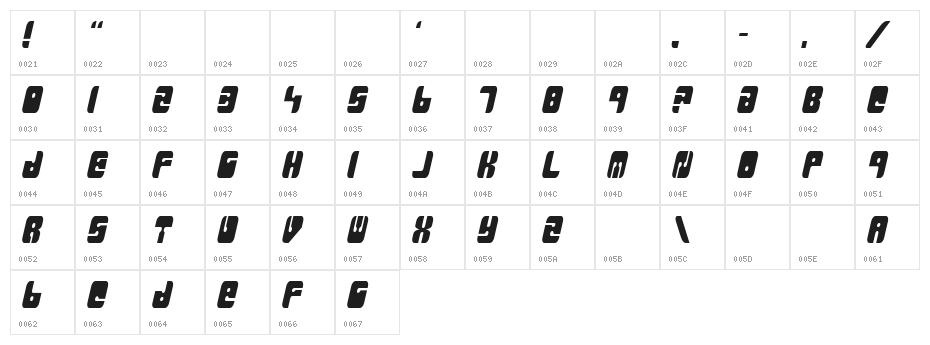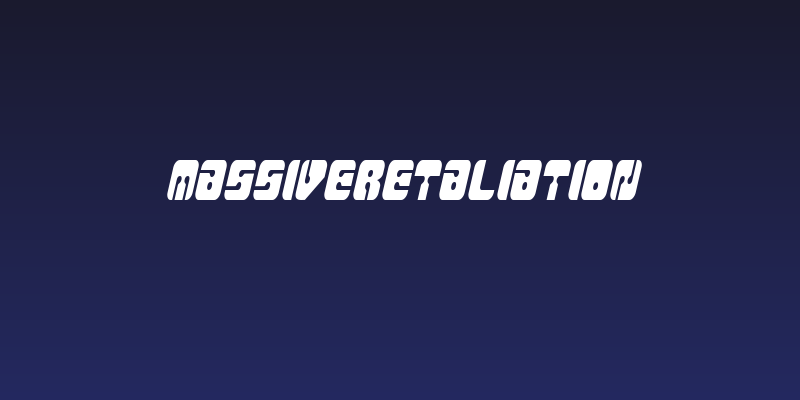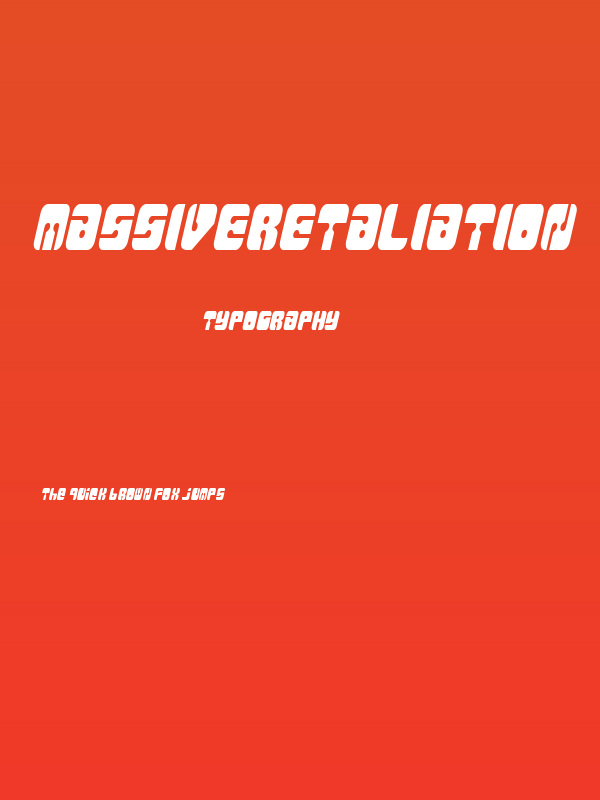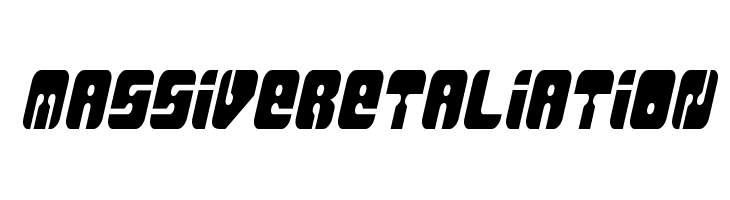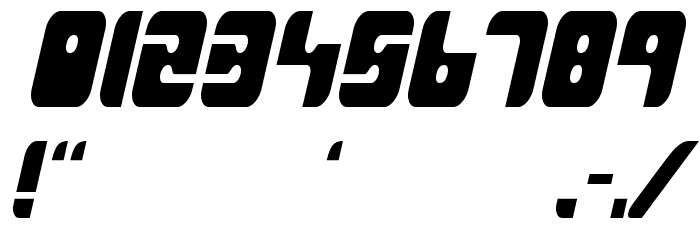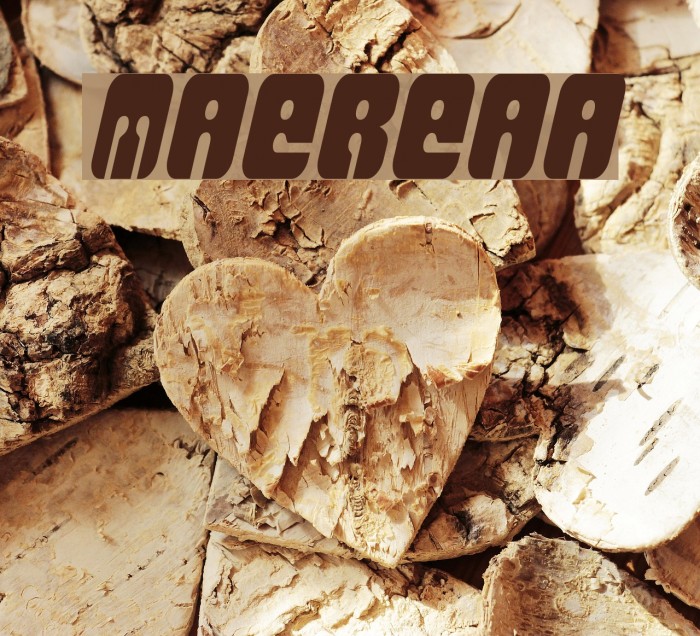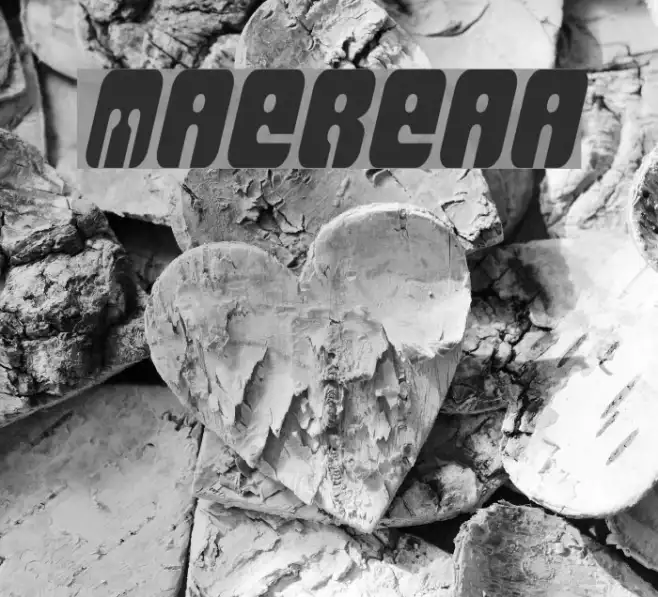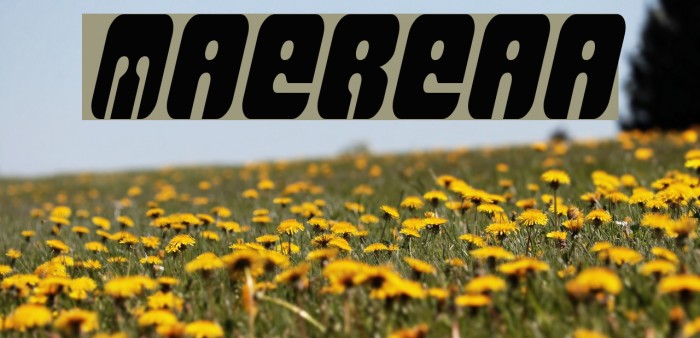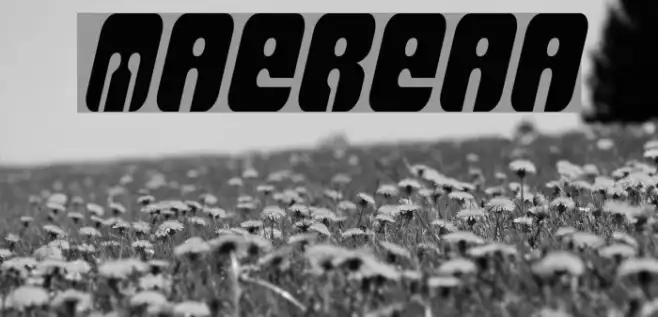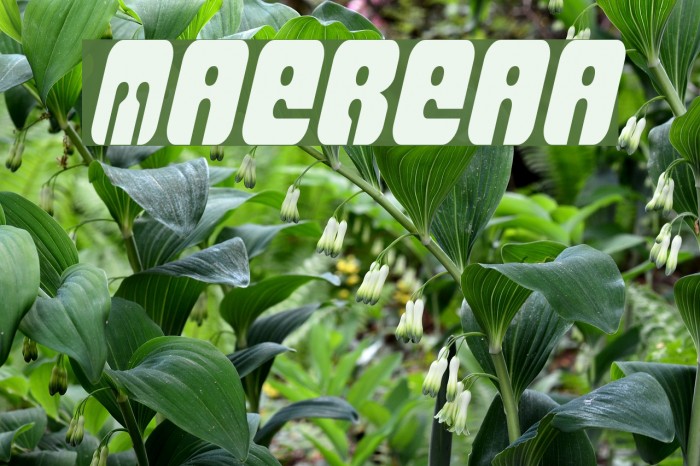
MassiveRetaliation Font
MassiveRetaliation Description
This font features a bold and futuristic design with a distinctive, rounded style. The characters are wide and have a unique, almost stencil-like appearance, with certain parts of each letter cut out to create a dynamic and modern look. The font's heavy weight and geometric shapes make it stand out, while the rounded edges soften its overall impact. It is highly legible and eye-catching, making it suitable for attention-grabbing headlines or branding materials.
| Width | Expanded |
| Overall Style | Futuristic |
| Proposed Projects | Ideal for futuristic branding, sci-fi posters, video game titles, and tech-related projects. |